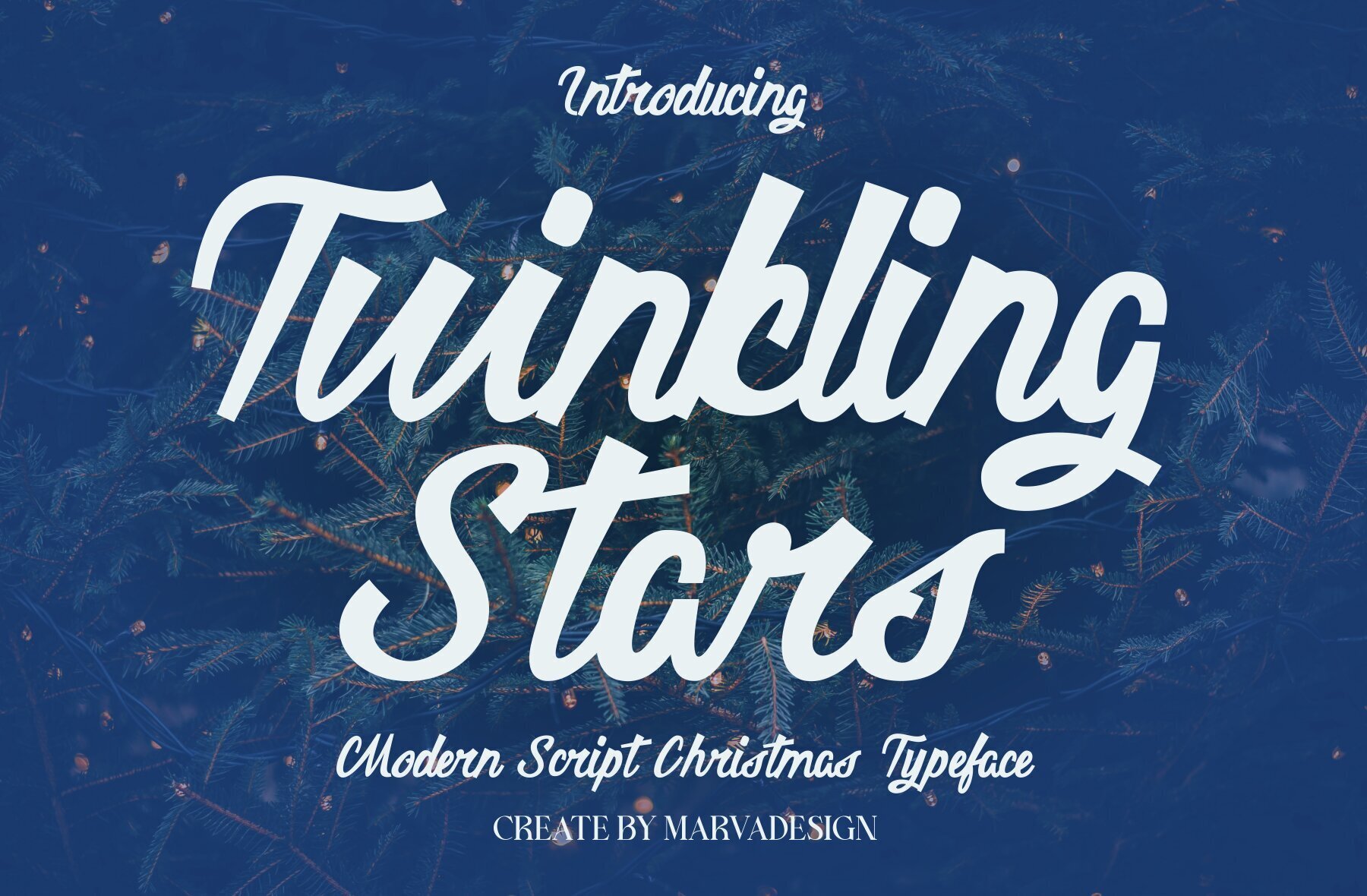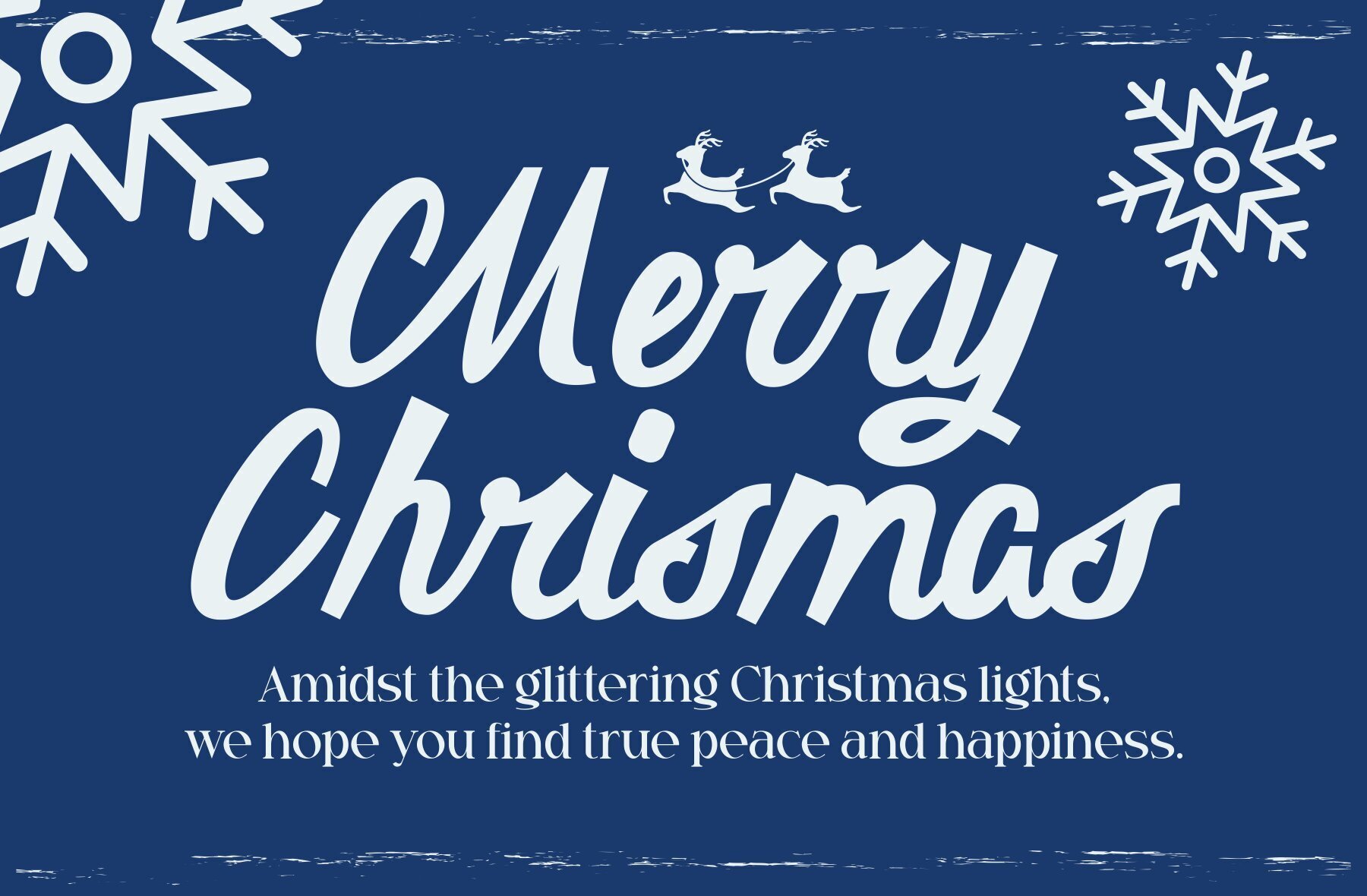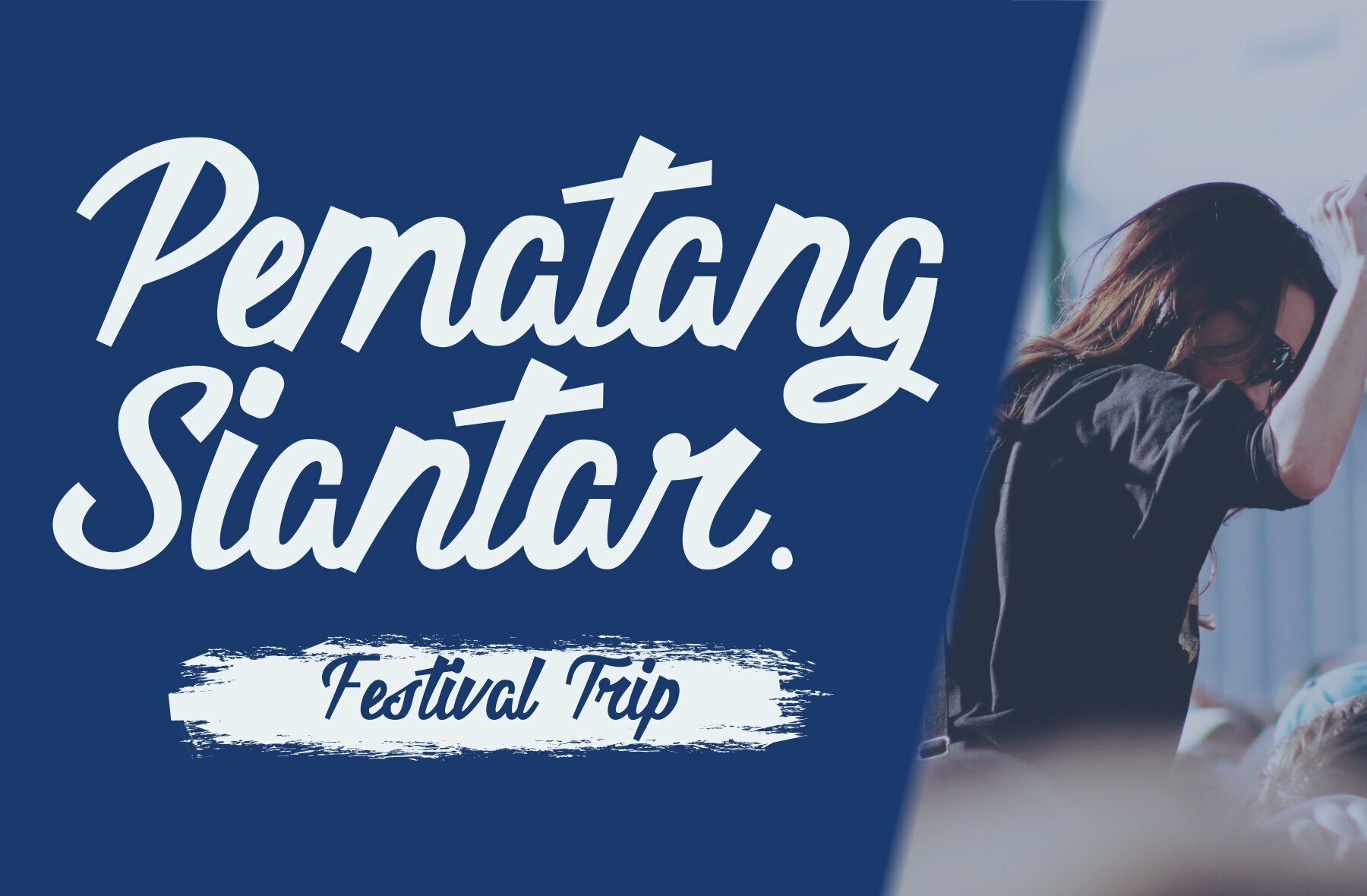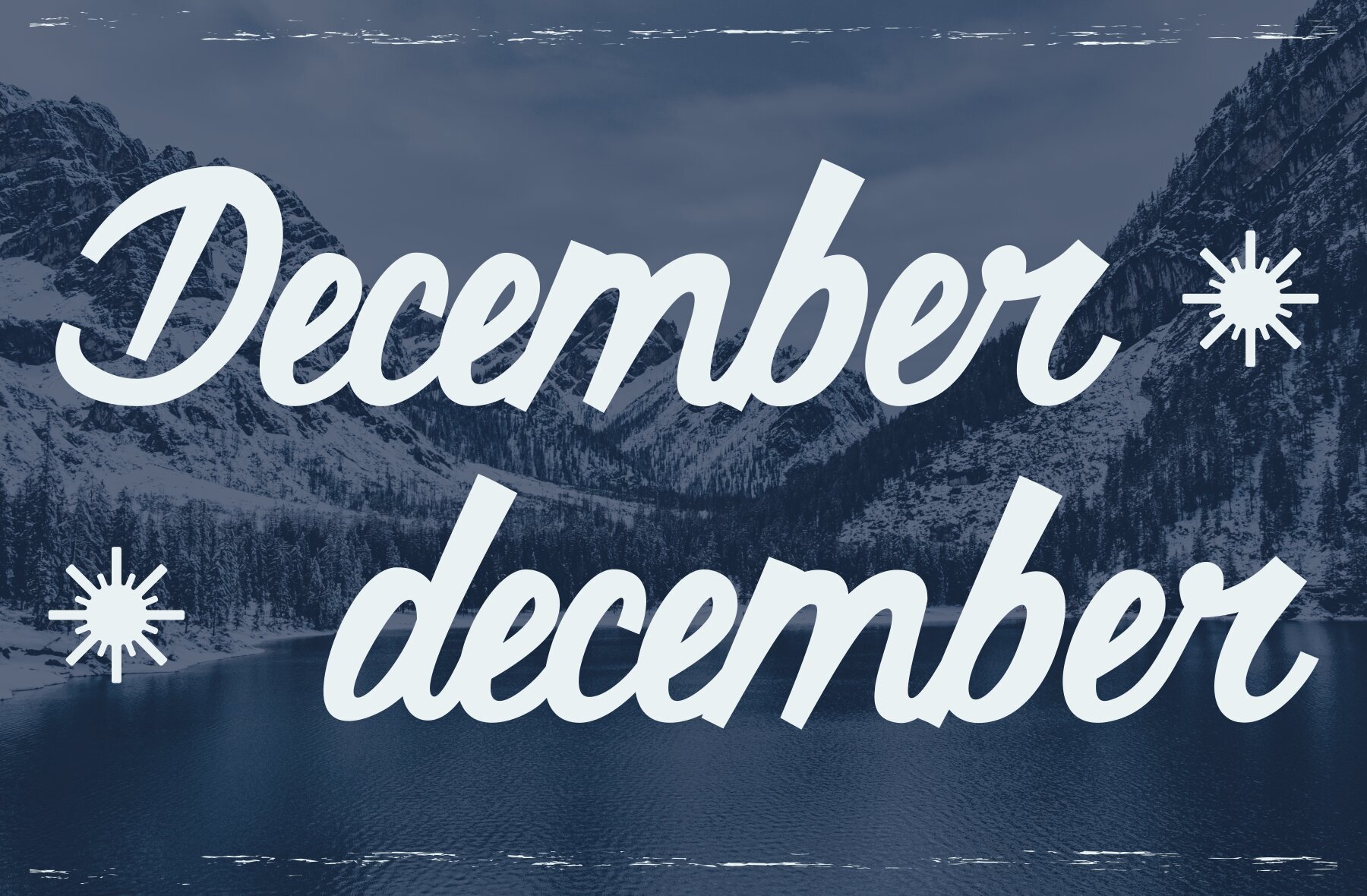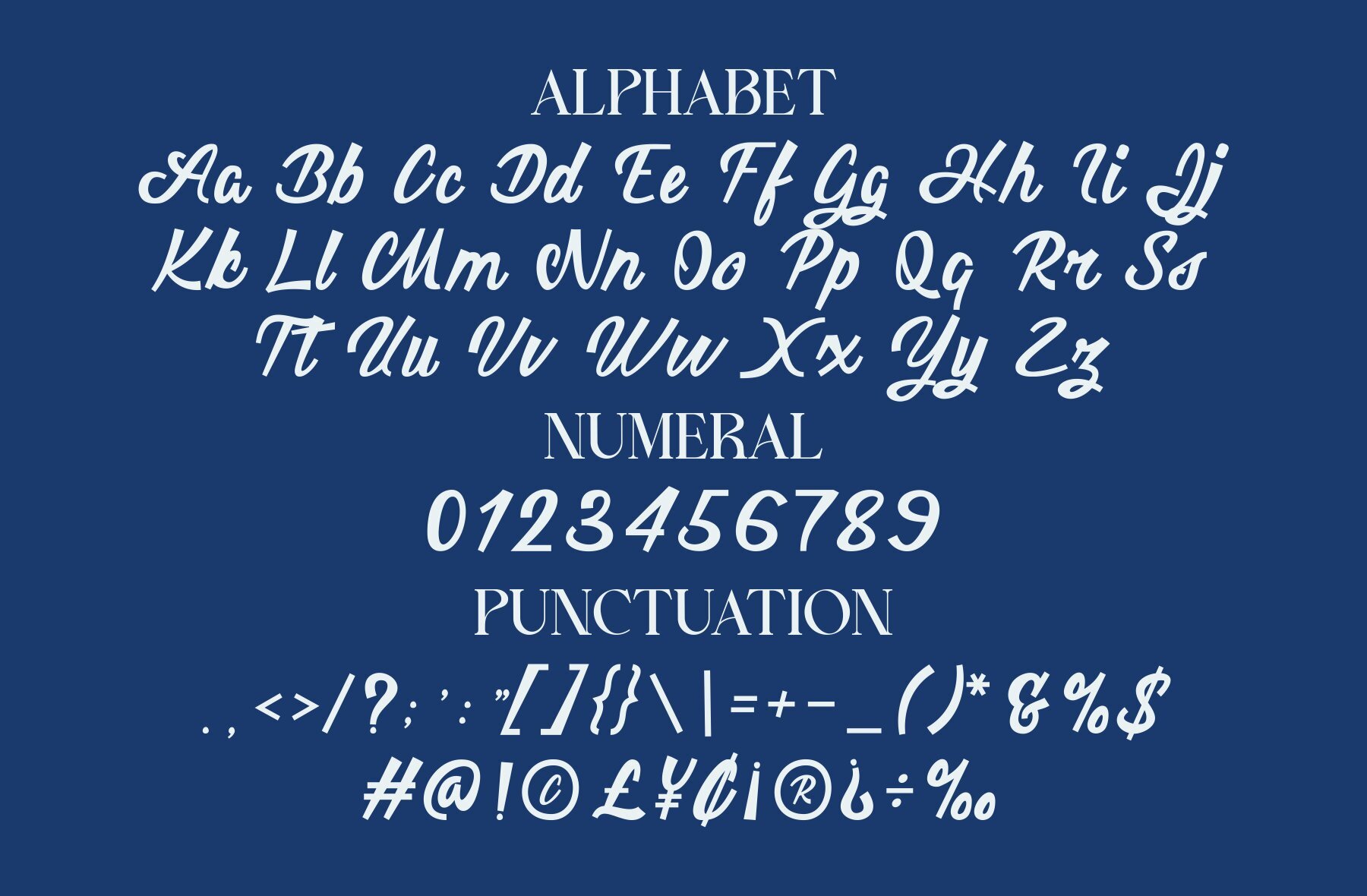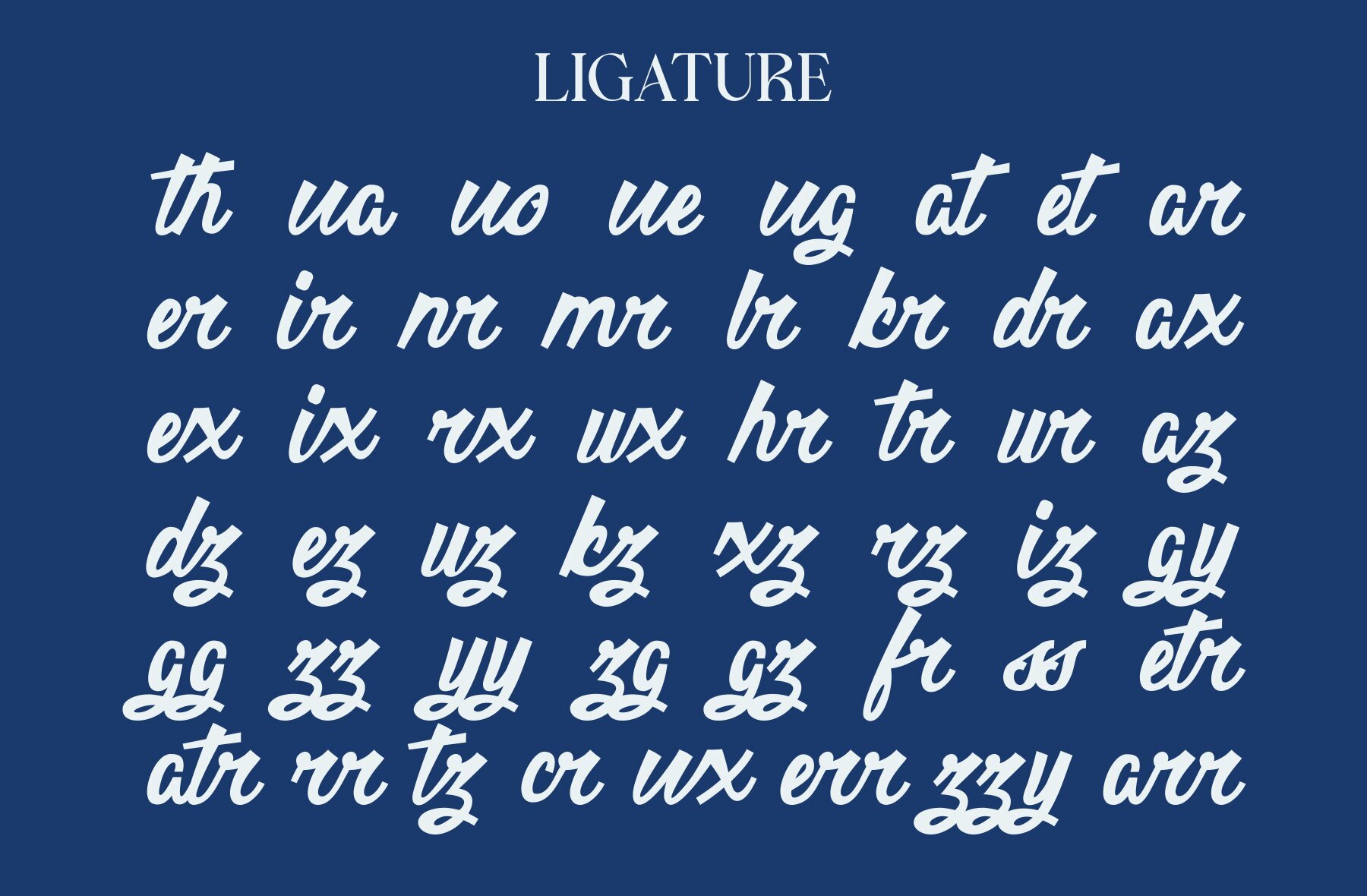
Twinkling Stars: Modern Script & Handwritten Font
Twinkling Stars is a font that combines modern script and handwritten styles, offering an authentic display suited for a variety of branding projects. Ideal for logos, template designs, and other creative endeavors, it performs outstandingly in diverse contexts.
• Uppercase and Lowercase – Provides flexibility in design.
• Ligatures – Enhances the look with stylish connections between letters.